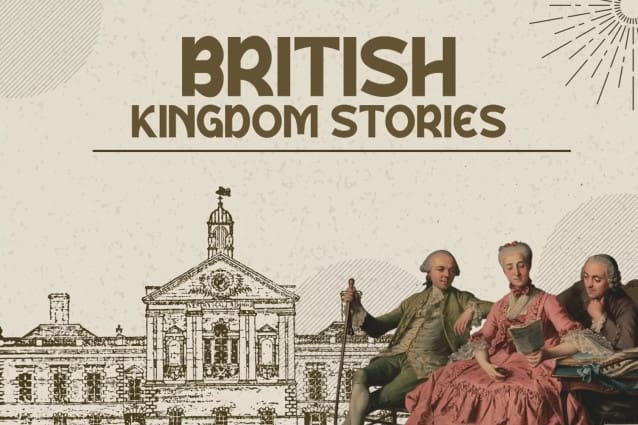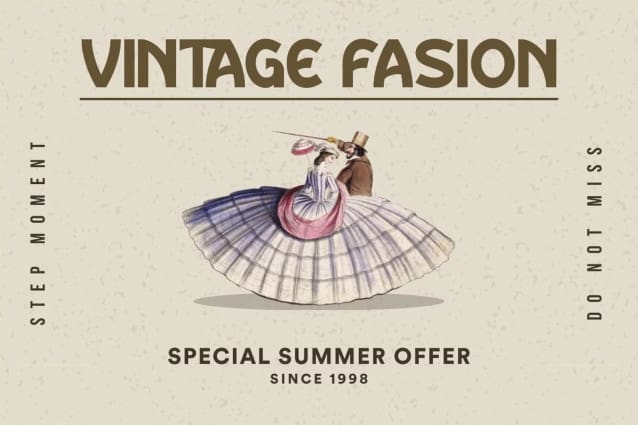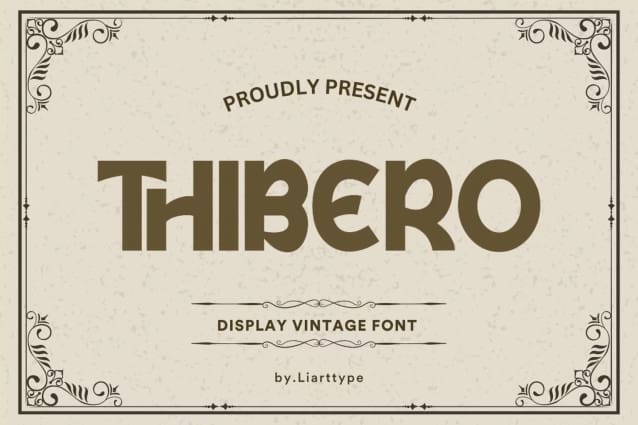
Thibero Font
Thibero Font is a retro display font that is based on sans serif with bold and thin as its characteristics. Although retro is not only suitable for vintage designs, it is also suitable for modern designs such as magazine headlines or advertisement headlines. Because of the bold body, this font has a strong impression.